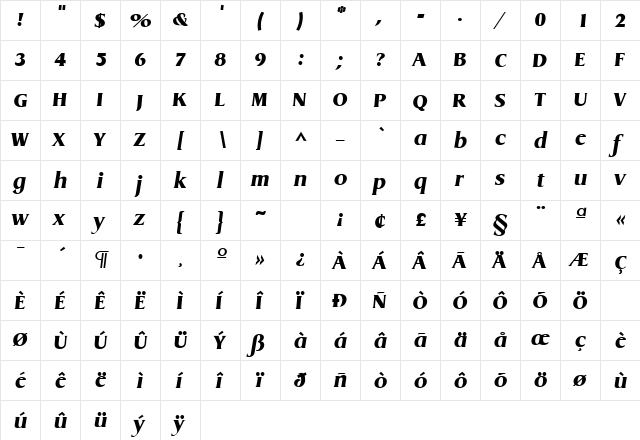
DynamicItal Regular
Design Context for DynamicItal Typeface
DynamicItal is a composed and adaptable typeface that performs quietly and consistently across a wide range of design contexts.